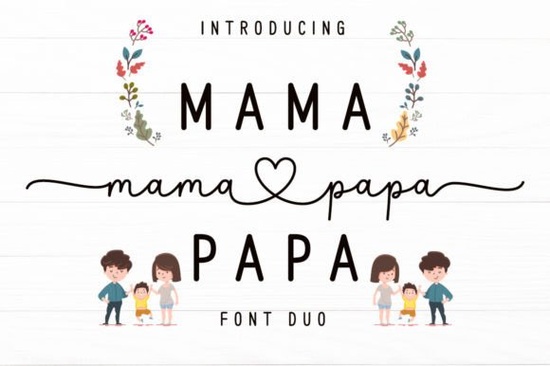
If you're looking for a pair of script fonts that feel personal, warm, and thoughtfully designed not overly ornate but never plain the Mama Papa Duo Font is worth your attention. It’s a cursive handwritten font set built for real creative work: wedding stationery, small-batch greeting cards, boutique branding, or even soft-spoken social media graphics. Unlike many script fonts that lean too formal or too playful, this duo balances delicacy with quiet confidence two complementary styles (one slightly bolder, one lighter) that work together without competing.
What makes the Mama Papa Duo different from other script fonts?
First, it’s intentionally paired. Many designers grab a single script font and then hunt for a secondary typeface to go with it often ending up with mismatched weights or inconsistent x-heights. With Mama Papa Duo, both fonts were drawn to harmonize: same rhythm, same slant, same subtle bounce in the baseline. That means less time adjusting letter spacing or faking alignment, and more time focusing on your message.
Second, it avoids extremes. It’s not ultra-thin (so it holds up well at smaller sizes), nor does it have heavy swashes that clutter tight layouts. The lowercase ‘g’, ‘y’, and ‘f’ have gentle descenders not dramatic, but enough to give movement. Uppercase letters are friendly, not stiff. And because it includes standard OpenType features like ligatures and alternate characters, you can add subtle variation without switching fonts.
Where does it work best?
This isn’t a “one-size-fits-all” font but it is a great fit for specific, common use cases:
- Wedding & event design: Invitations, menus, place cards, and vow books where warmth matters more than formality.
- Small business branding: For makers, florists, bakeries, or wellness studios wanting a hand-drawn feel without looking amateurish.
- Greeting cards & print-on-demand: Works cleanly on textured paper and translates well to digital mockups thanks to its consistent weight and spacing.
- Social media storytelling: Captions, quote graphics, or Instagram story text where readability meets personality.
How to use it alongside other fonts
You don’t need to use Mama Papa Duo alone. In fact, pairing it with a clean sans-serif (like Poppins or Montserrat) gives excellent contrast soft script for headlines or names, neutral type for body text. If you prefer all-script pairings, consider Milkshake Font for bolder moments, or Font Maker Font when you want something more structured and upright. For contrast in energy, Cyber Brush Font adds texture and edge, while Misha Salma Font offers a slightly more refined, calligraphic alternative.
Test it at actual size especially if you’re using it for physical products. Print a sample line at 14pt and 24pt on your intended paper stock. Some script fonts lose clarity when scaled down or printed on uncoated paper; Mama Papa Duo handles both reasonably well, but always verify.
Check the character set. It supports basic Latin characters, numerals, and common punctuation but doesn’t include extended diacritics or multilingual glyphs. So if you regularly design for Spanish, French, or Portuguese markets, confirm coverage matches your needs.
A note on sourcing quality script fonts
Not all handwritten fonts are created equal. Some rely heavily on auto-generated outlines or lack proper kerning pairs, which leads to awkward gaps between letters (like “To” or “Va”). Others overuse alternates, making consistency hard to maintain across a full layout. The Mama Papa Duo Font was crafted with intentional spacing and tested across common word combinations so what you see in the preview is close to what you’ll get in practice.
For comparison, Milkshake Font, Font Maker Font, Cyber Brush Font, and Misha Salma Font each solve different problems some prioritize bounce, others texture or precision. But for gentle, sincere, and cohesive handwriting, Mama Papa Duo stands out quietly.